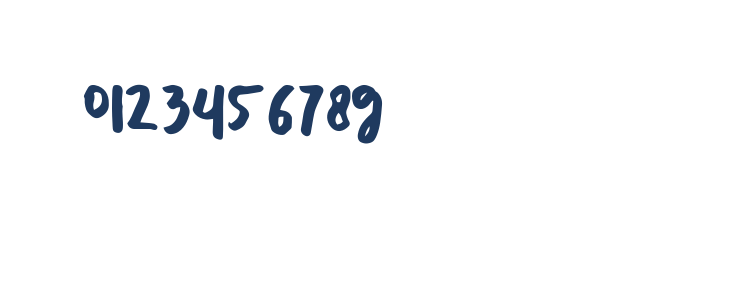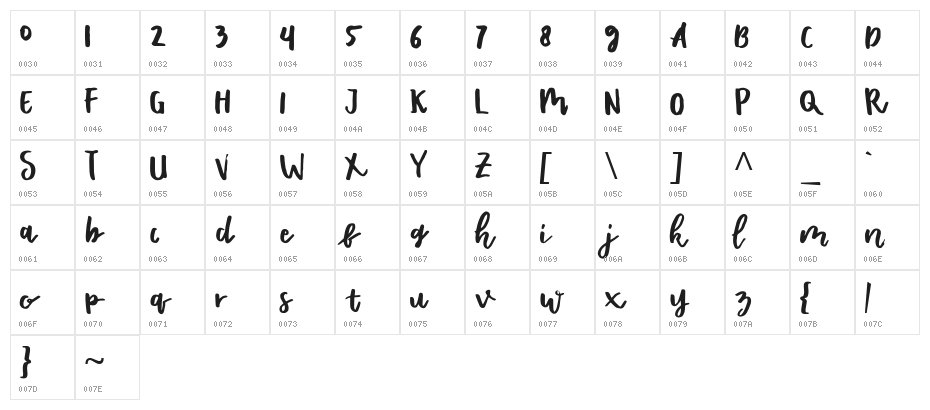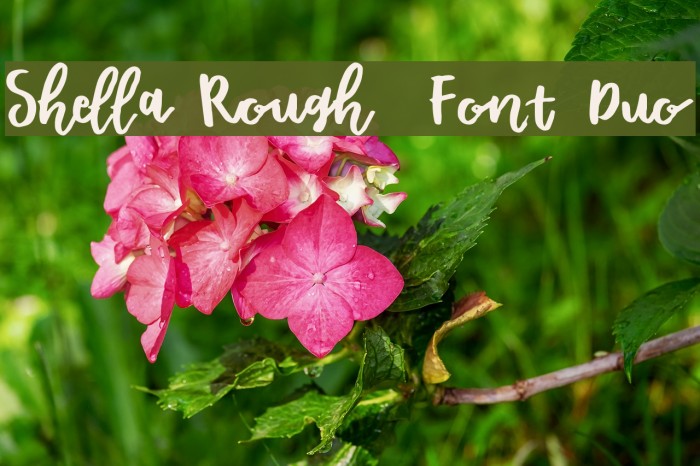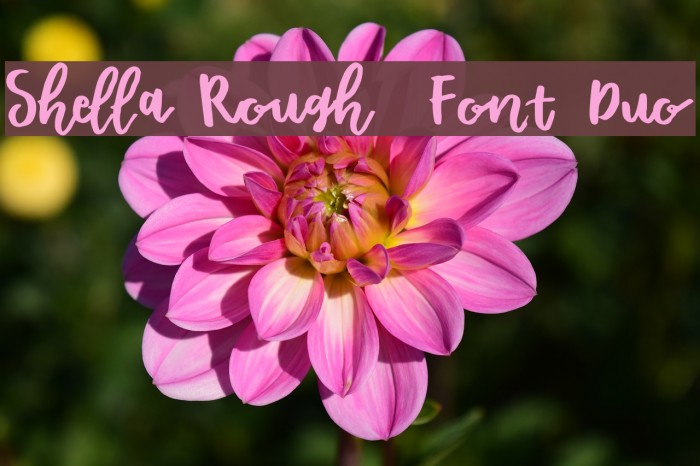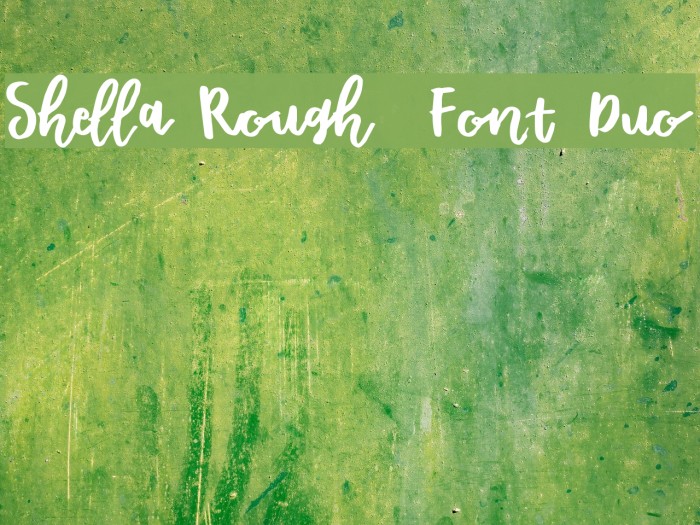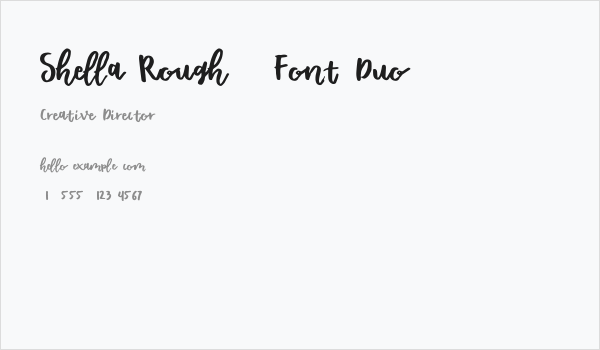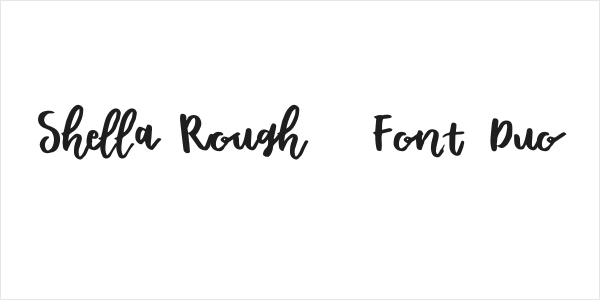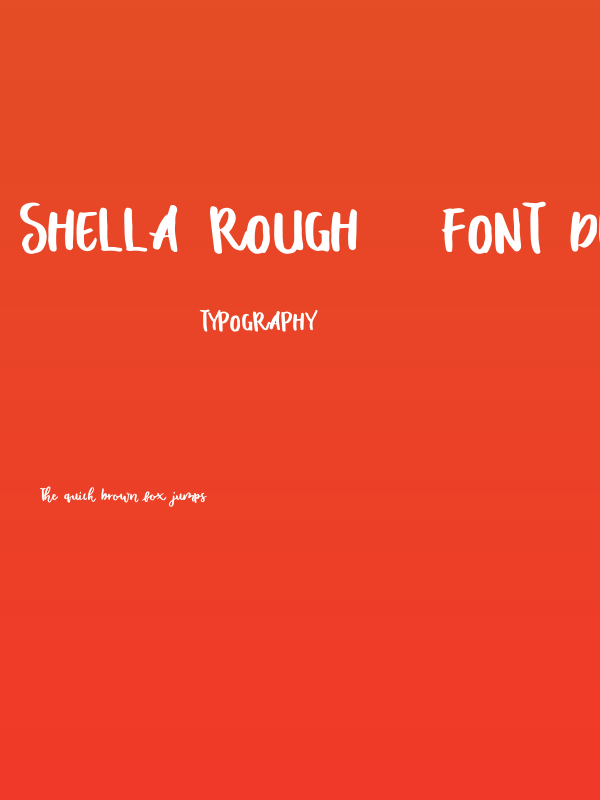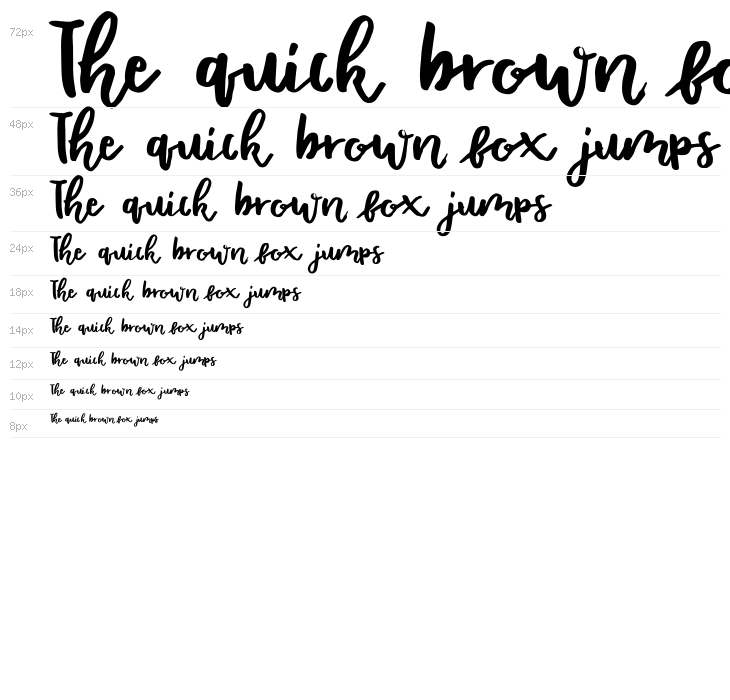
Shella Rough - Font Duo Font
Shella Rough - Font Duo Description
This font features a bold, hand-drawn style with a rough, textured appearance. The characters are crafted with a playful and artistic flair, making them stand out with their unique, irregular strokes. The uppercase and lowercase letters maintain a consistent style, with a slightly exaggerated, whimsical touch. The numbers and special characters follow the same design ethos, ensuring a cohesive look across all elements. This font exudes a casual, friendly vibe, perfect for projects that require a personal, handmade feel.
| Proposed Projects | Ideal for greeting cards, posters, branding, and social media graphics that need a personal touch. |